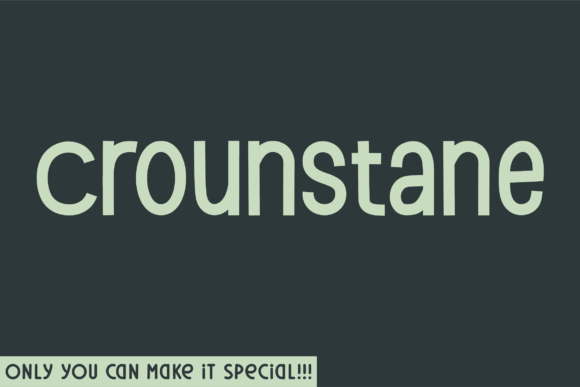
Crounstane Font: The Epitome of Authenticity and Uniqueness
In the realm of typography, few fonts have managed to capture the essence of handcrafted uniqueness as effectively as Crounstane. This extraordinary typeface is not just a collection of letters and symbols; it’s an experience, a statement, and a reflection of the artisan’s touch. In this article, we’ll delve into the world of Crounstane, exploring its characteristics, applications, and the distinctive charm it brings to digital media.
The Birth of Crounstane: A Handcrafted Legacy
Crounstane is more than just a font; it’s a piece of art that has been meticulously crafted by hand. Every stroke, every curve, and every indentation is a testament to the human touch that defines it. Unlike machine-generated fonts that often lack character, Crounstane retains the nuances of its creation process, making it extraordinarily individualistic. This handcrafted legacy is what sets Crounstane apart, offering a refreshing alternative to the uniformity of digital typography.
Incorporating Hand-Written Charm into Digital Media
One of the most significant challenges in digital design is replicating the authenticity of hand-written letters. Crounstane meets this challenge head-on, flawlessly incorporating the charm of hand-written letters into digital media. Its unique character makes it an ideal choice for designers looking to add a personal touch to their projects. Whether it’s for distinctive quotes, noteworthy messages, trendy t-shirt designs, or innovative product branding, Crounstane brings a level of authenticity that is hard to achieve with standard fonts.
Applications of Crounstane: Where Uniqueness Matters
The versatility of Crounstane is one of its most compelling features. Its applications are vast and varied, limited only by the imagination of the designer. Here are a few areas where Crounstane truly shines:
- Distinctive Quotes and Messages: Crounstane’s unique character makes it perfect for quotes and messages that need to stand out. Its handcrafted nature gives quotes a personal and intimate feel, making them more impactful.
- Trendy T-Shirt Designs: In the world of apparel design, standing out is crucial. Crounstane offers a fresh and unique aesthetic that can elevate t-shirt designs from ordinary to extraordinary.
- Innovative Product Branding: For brands looking to make a statement, Crounstane provides an opportunity to infuse their products with a sense of authenticity and uniqueness. It’s an excellent choice for brands that value individuality and craftsmanship.
The Quintessential Component for Designers
For designers, finding the right font can often be a daunting task. Crounstane emerges as a quintessential component in the design toolkit, offering a blend of uniqueness, authenticity, and charm. It allows designers to push the boundaries of creativity, creating works that are not only visually appealing but also carry a story of their own.
Conclusion: The Originality of Crounstane
Crounstane is not just a font; it’s an embodiment of originality in the form of a typeface. Its handcrafted nature, unique character, and versatility make it an invaluable asset for anyone looking to add a touch of authenticity to their digital designs. As we continue to navigate the vast landscape of digital media, fonts like Crounstane remind us of the importance of uniqueness and the beauty of the human touch. We invite you to explore the world of Crounstane and experience the difference that handcrafted typography can make.